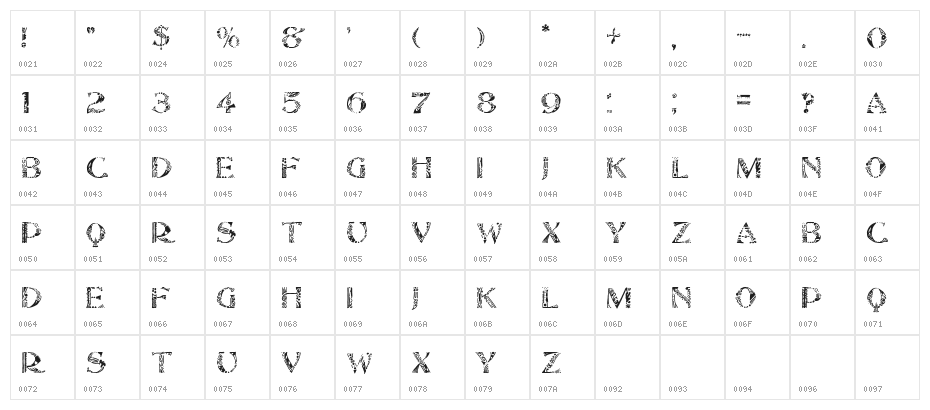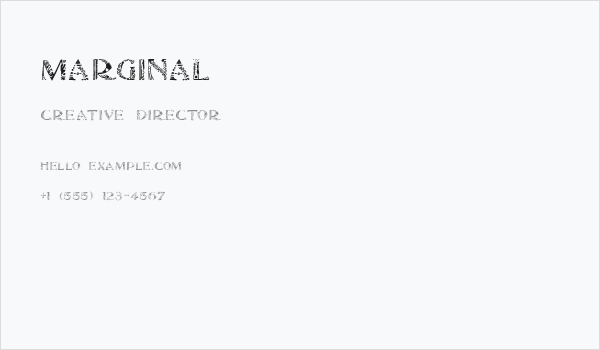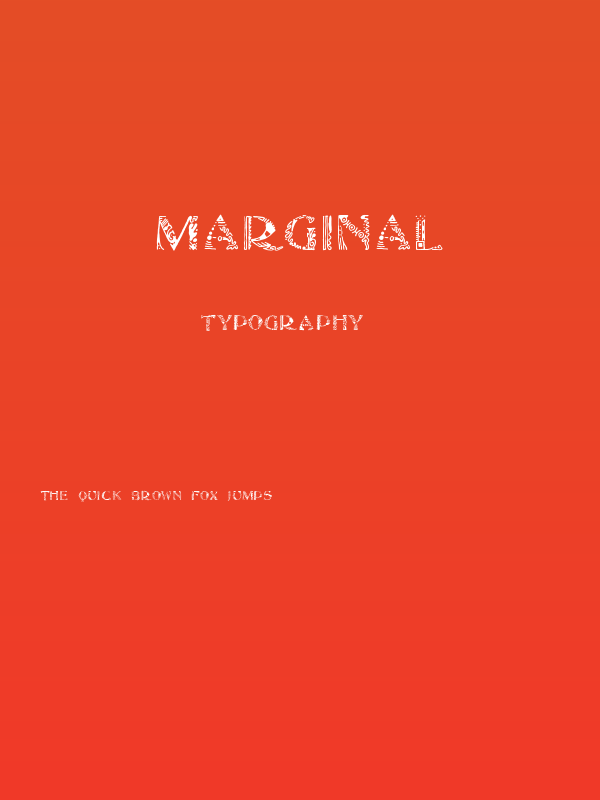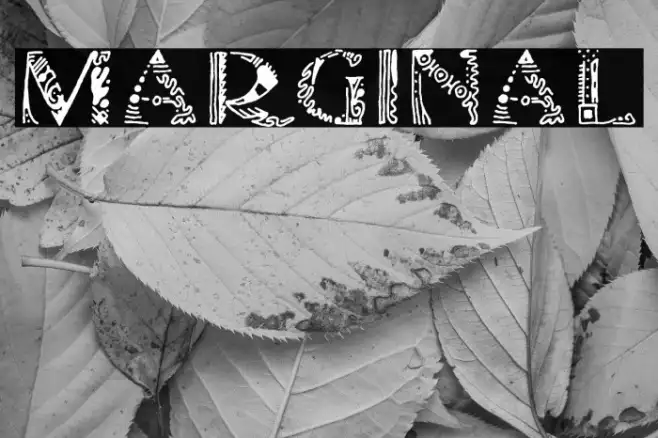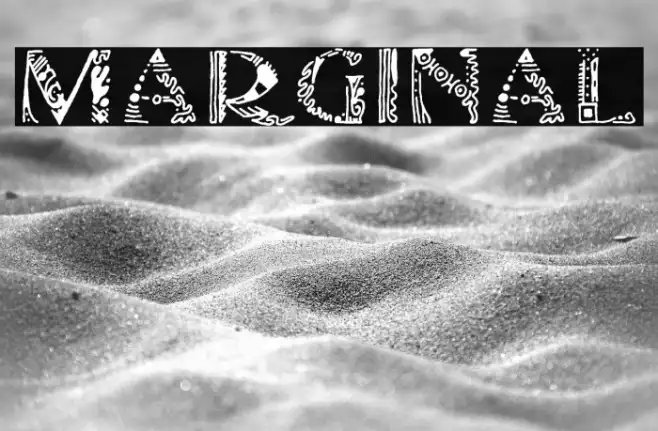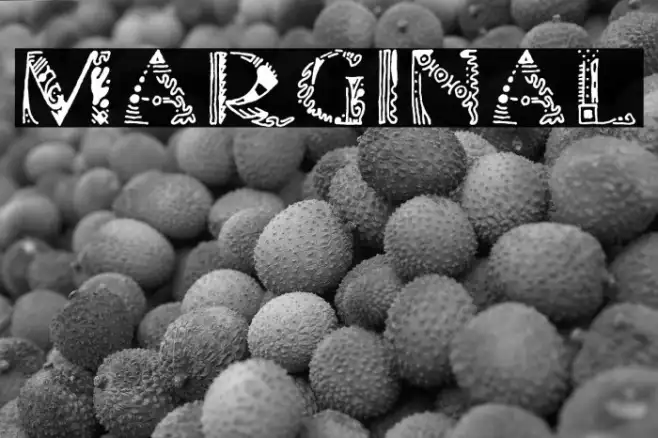
Marginal Font
Marginal Description
This font features a highly decorative and intricate design, with each character adorned with unique patterns and motifs. The letters are bold and eye-catching, making use of various shapes and symbols to create a visually complex appearance. The uppercase and lowercase letters maintain a consistent style, with swirling lines and geometric elements that add depth and texture. Numbers and special characters follow the same ornate theme, ensuring a cohesive look across all glyphs. This font is ideal for projects that require a standout, artistic touch.
| Use Case | Headlines, Logos, Artistic projects |
| Proposed Projects | Ideal for artistic projects, posters, album covers, and creative branding. |